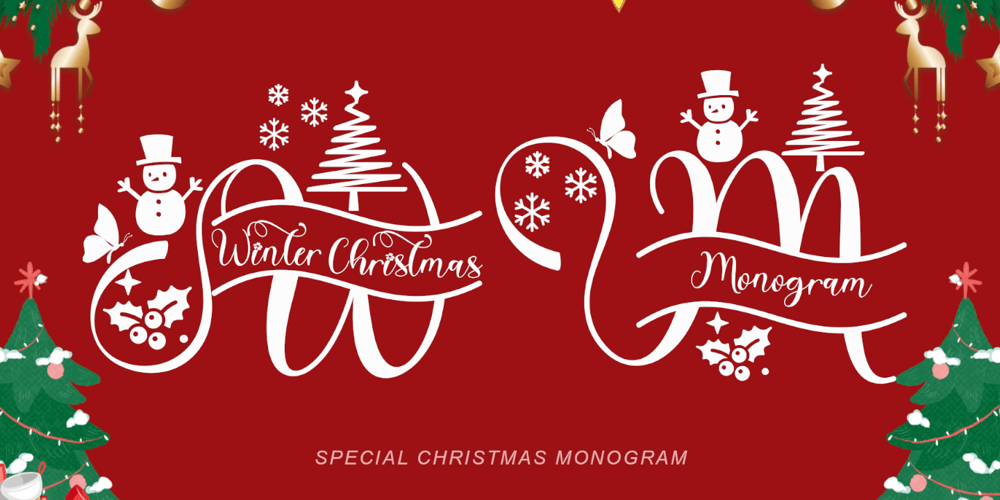
Winter Monogram Font Family was designed by Isroni Yoga Prasetya and published by Yoga Letter. Winter Monogram contains 2 styles and family package options. “Winter Christmas Monogram” is a beautiful and unique Christmas monogram font. This font is equipped with monograms, uppercase, lowercase, numerals, punctuation, ligatures, and multilingual support. Very suitable for Christmas, Valentine’s, winter, logos, banners, posters, prints, branding, stickers, and others.